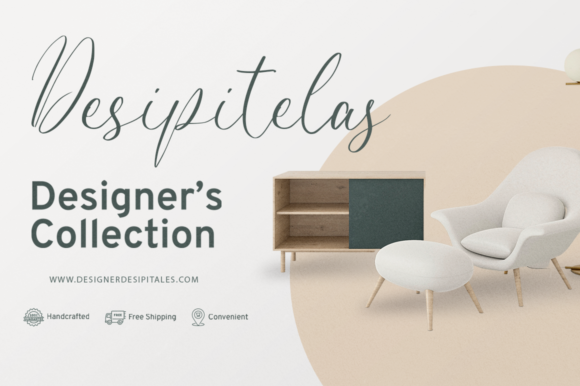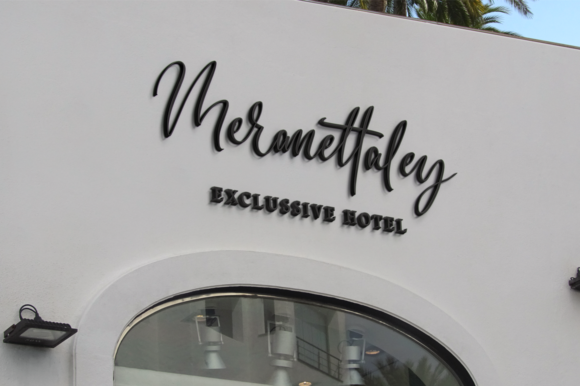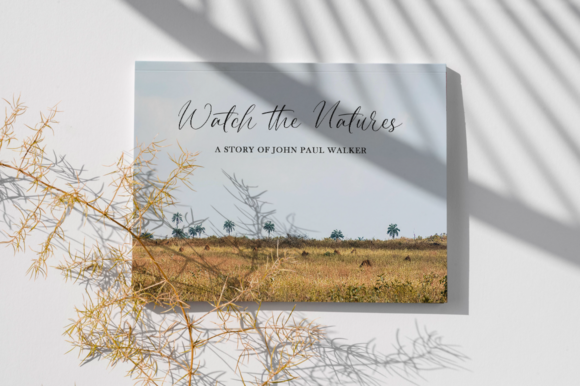
Introduction to Pauletta Font
Have you ever been working on a creative project, pouring your heart and soul into the details, only to realize that the perfect font is missing? You envision a design that exudes elegance and sophistication, but the right words just won’t come together. That’s where the Pauletta Font comes in – a chic, refined script font that elevates any project to new heights.
With its stylish alternates and ligatures, Pauletta Font is the ultimate design resource for creatives. Whether you’re working on a high-quality brochure, a website, or even a social media campaign, this font is sure to make a statement. And the best part? It’s PUA encoded, making it easy to access all the glyphs and swashes you need to bring your design to life.
Key Features of Pauletta Font
- Pauletta Font features a unique, elegant design with a transparent background, making it suitable for a variety of applications.
- Includes a range of characters, including uppercase and lowercase letters, numbers, and punctuation marks, for comprehensive use.
Honest Review: Pauletta Font
I recently came across the Pauletta Font and I’m excited to share my thoughts on this design resource. As a designer, I’m always on the lookout for high-quality fonts that can elevate my creative projects.
Here are some things that work well with the Pauletta Font: ✨
- Unique and elegant design aesthetic
- High-quality vectors for seamless scaling
However, I do have a few concerns: ⚠️
- Only a limited number of font styles are available, which may not be ideal for projects requiring multiple font options
- The font may not be suitable for body text due to its ornate design
Overall, I think the Pauletta Font is a great addition to any designer’s toolkit, especially for projects requiring a touch of elegance and sophistication. With its high-quality design and transparent background, it’s an excellent resource for creating stunning visuals. While it may have some limitations, I believe the Pauletta Font is definitely worth exploring for your next creative project.
Pauletta Font
Common Use Cases for Pauletta Font
Pauletta Font is perfect for a variety of design projects, including wedding invitations, business cards, and social media graphics. It’s also great for creating presentations, documents, and other materials that require a touch of elegance and sophistication.